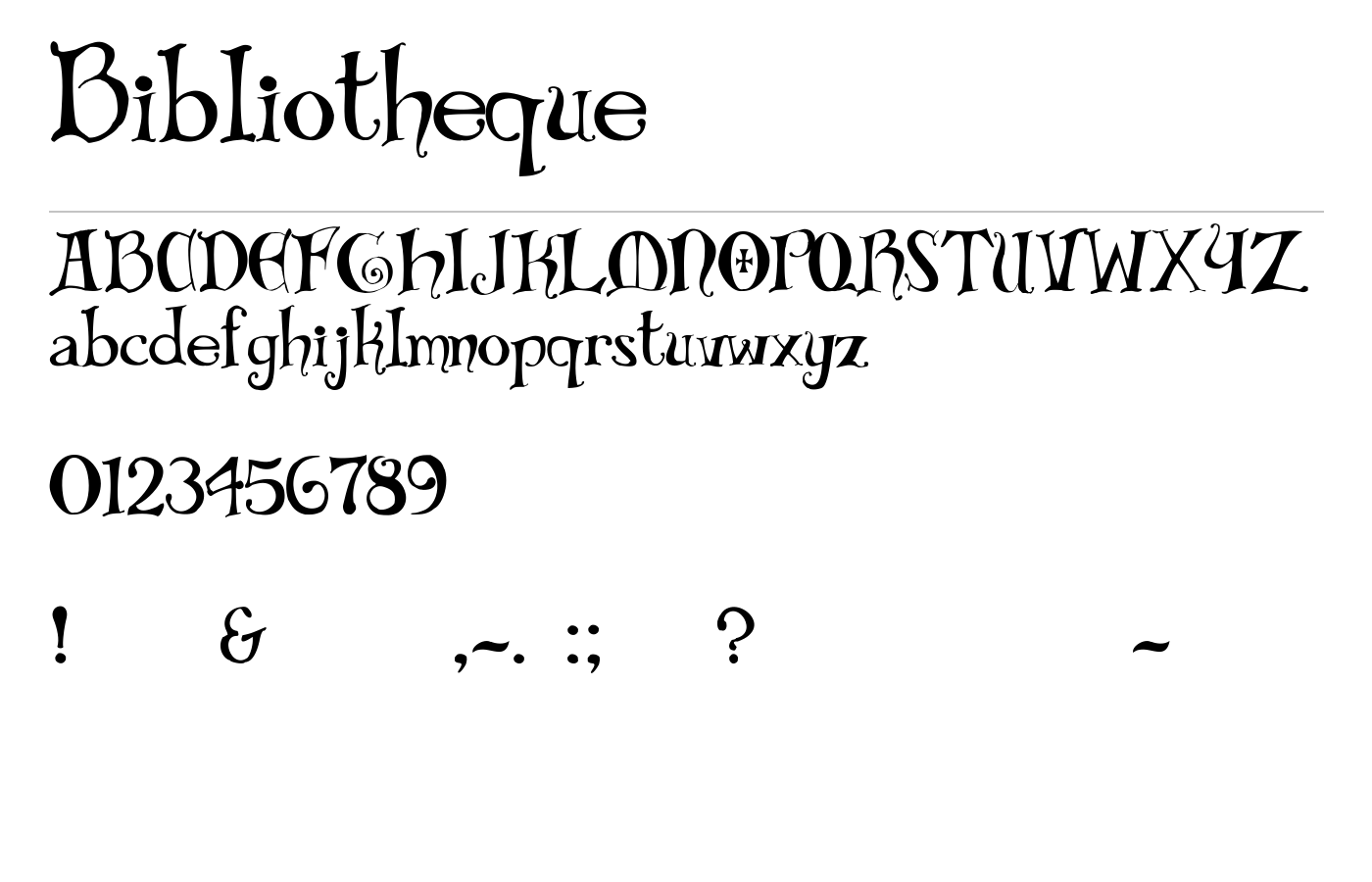
Bibliotheque is a whimsical serif font with an artistic, hand-crafted feel, featuring irregular shapes and playful curves that give it a distinctive, vintage charm. Its medium weight and moderate contrast combined with unique letterforms make it perfect for creative designs needing a touch of personality and elegance, such as book covers, invitations, or branding that seeks an old-world, storybook atmosphere. This font adds a sense of character and individuality, making it ideal for projects that want to stand out with a quirky yet refined look.
Bibliotheque Font
About Bibliotheque Font